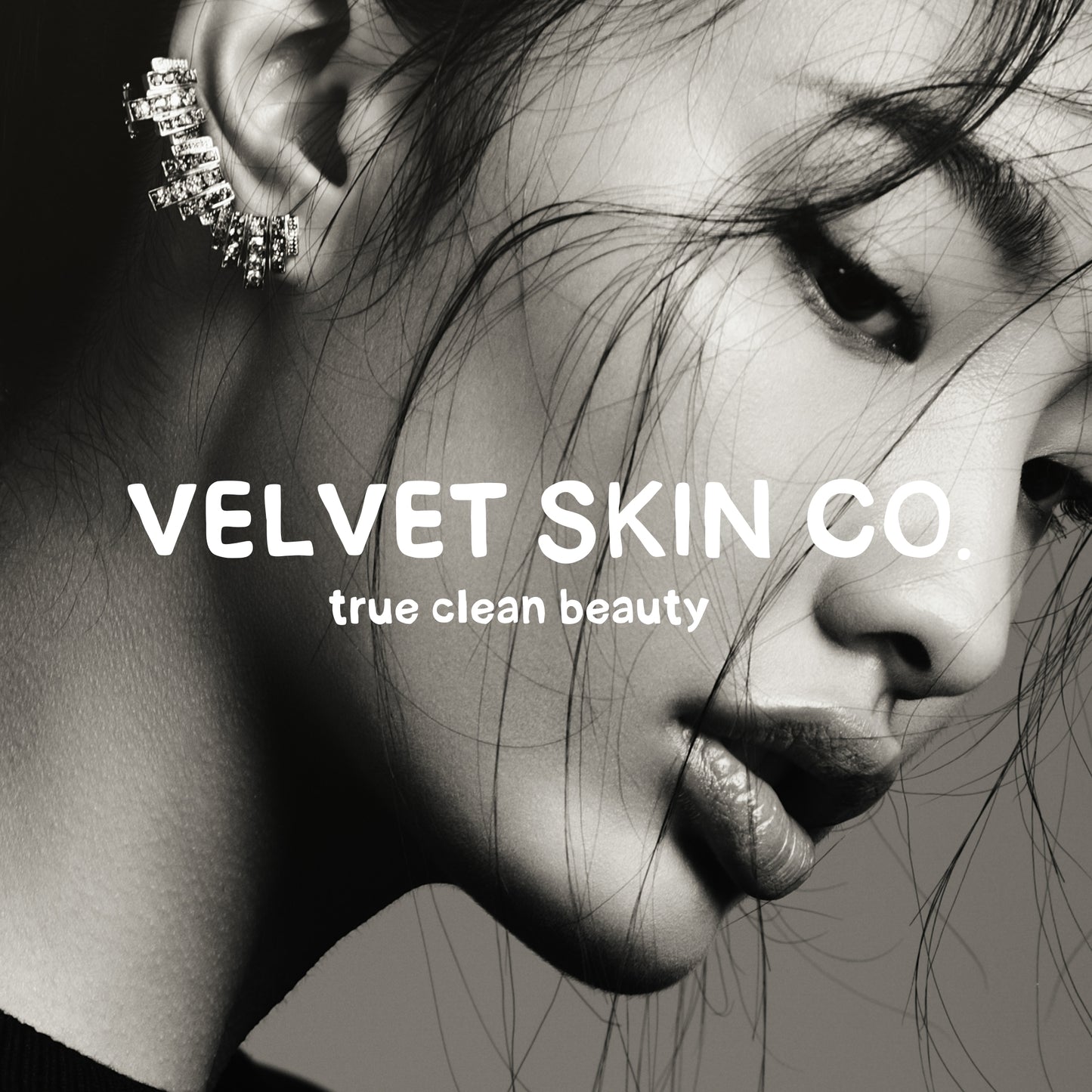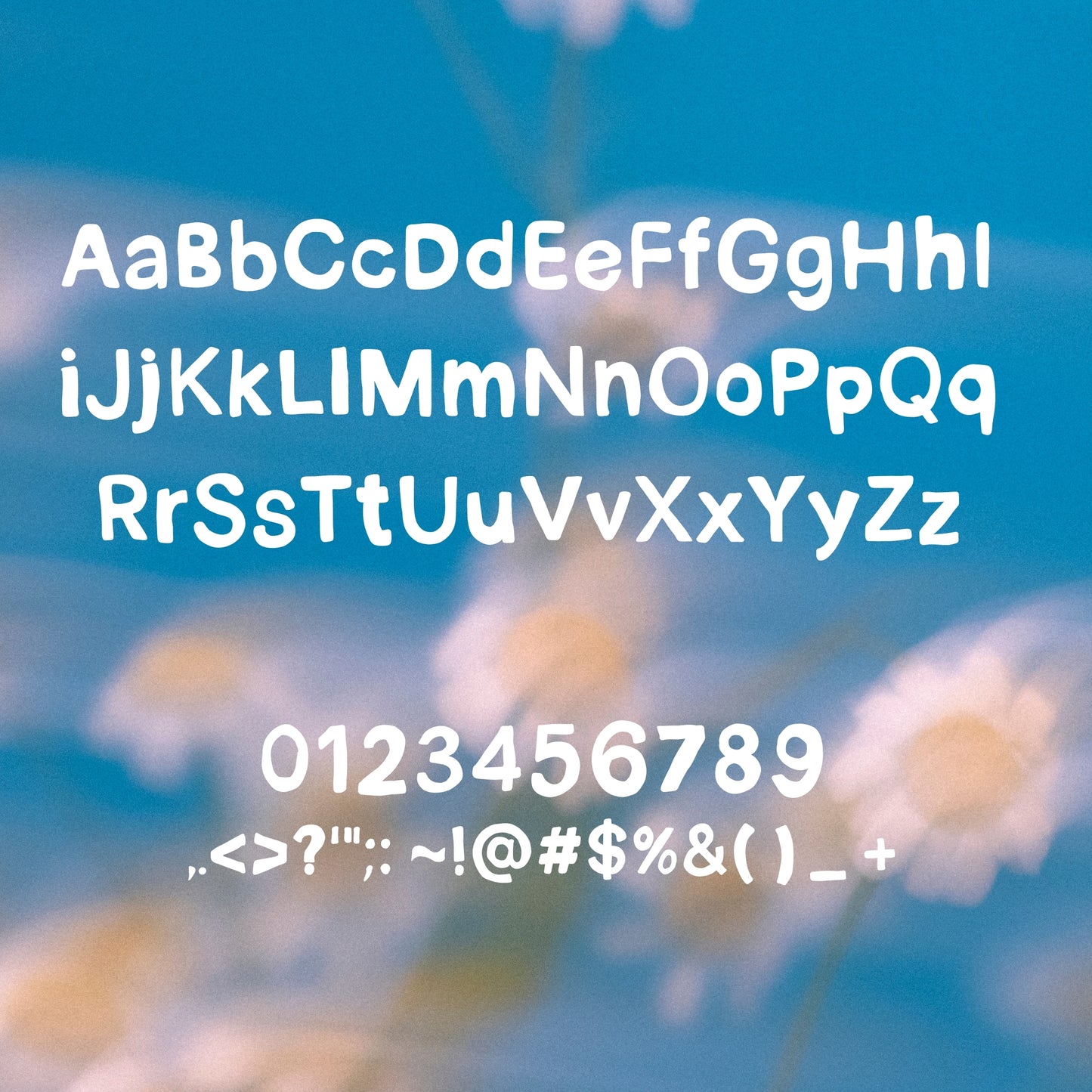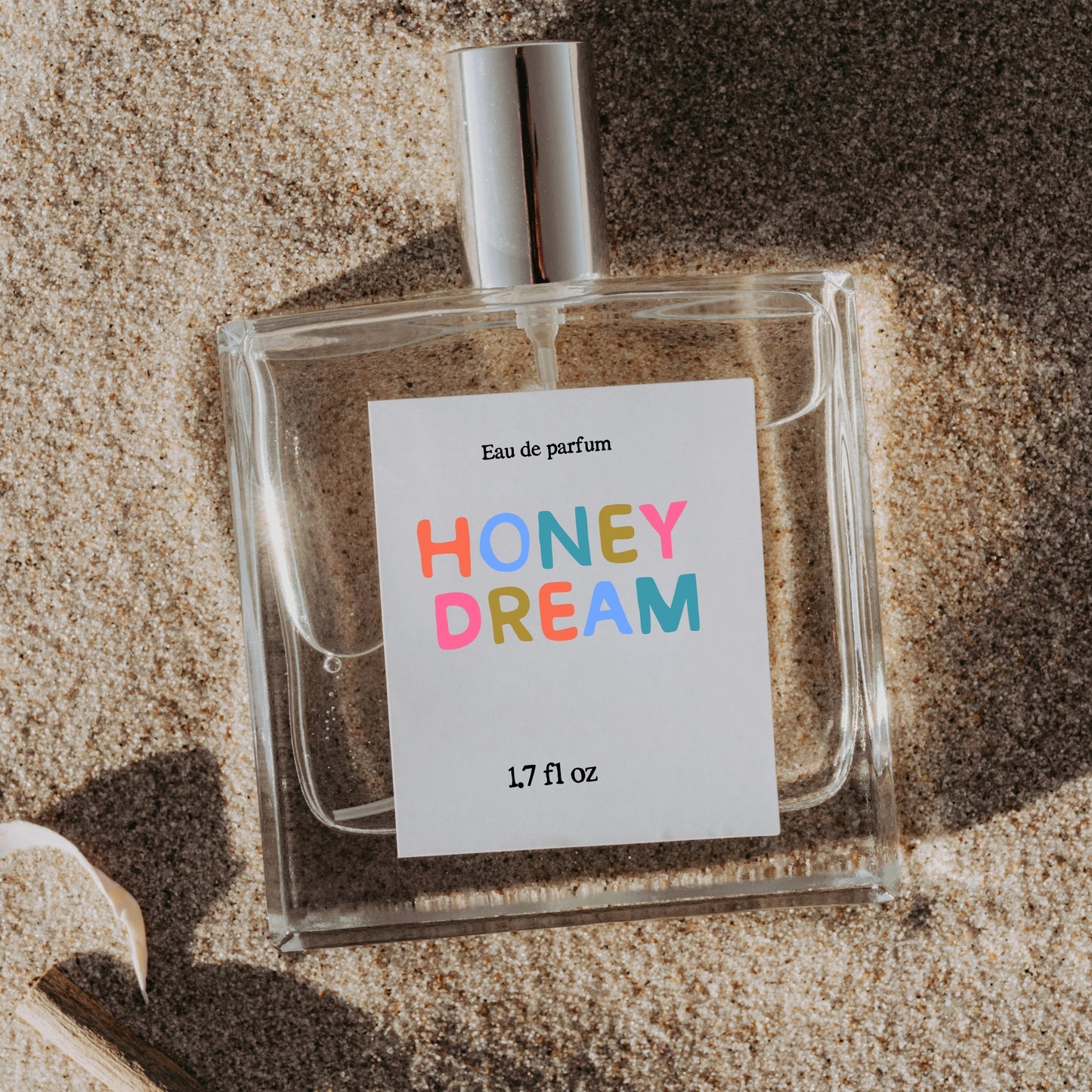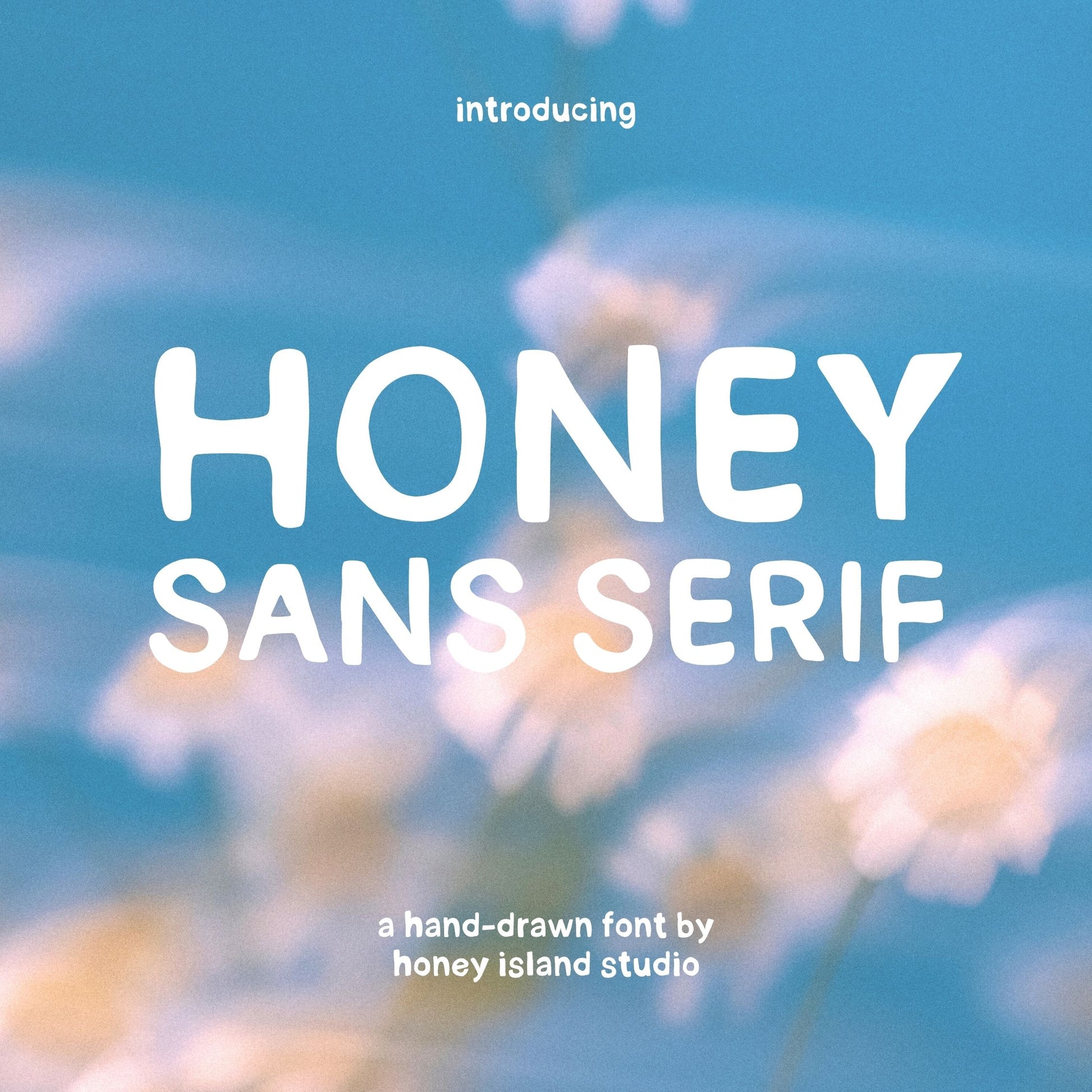
Honey Sans Serif Handwritten Font
Indulge in the sweet and playful charm of Honey Sans Handwritten Font. This font is perfect for adding a touch of whimsy to your projects. With its unique style and easy-to-read letters, it's sure to make your designs stand out. Give your words a honeyed touch with Honey Sans Handwritten Font.
Transform your text into a delightful visual experience with this enchanting font!